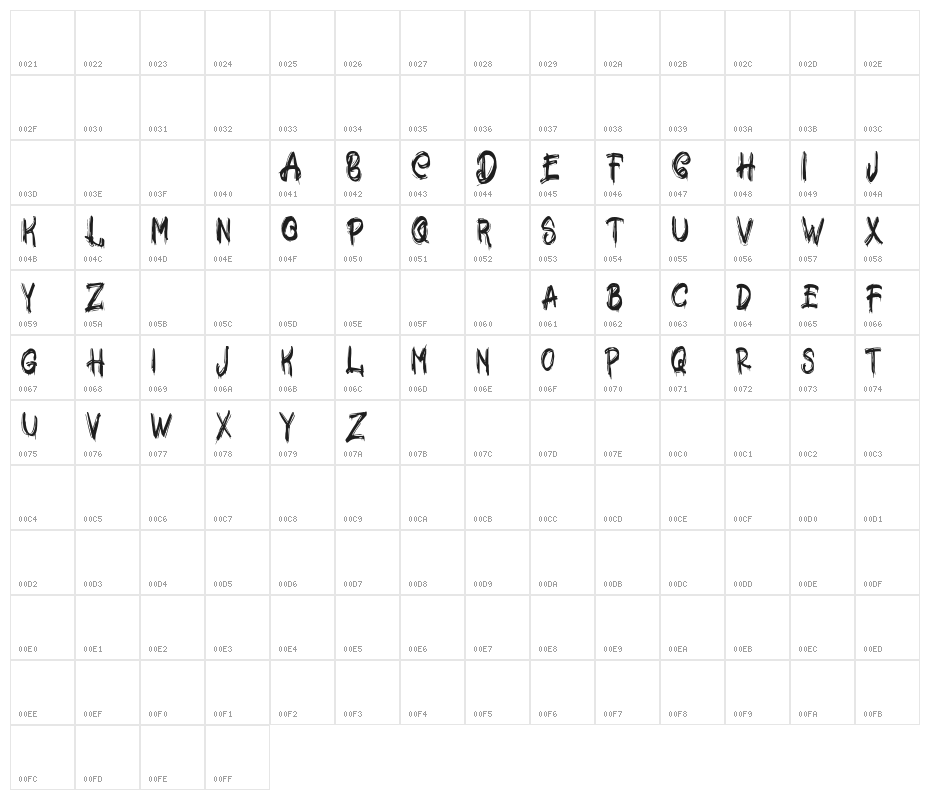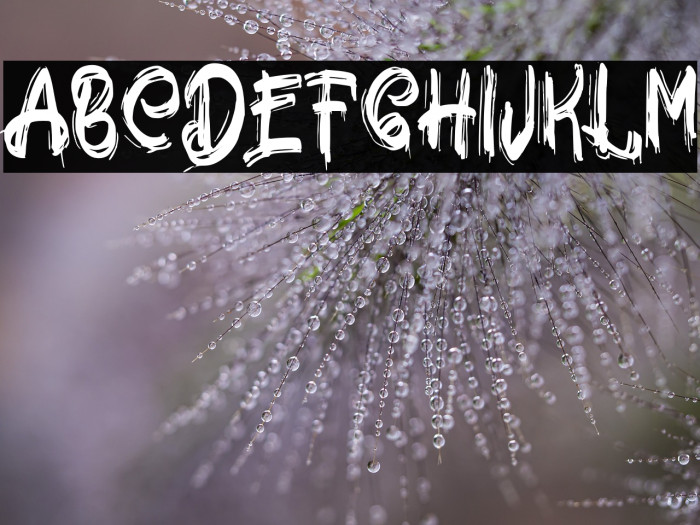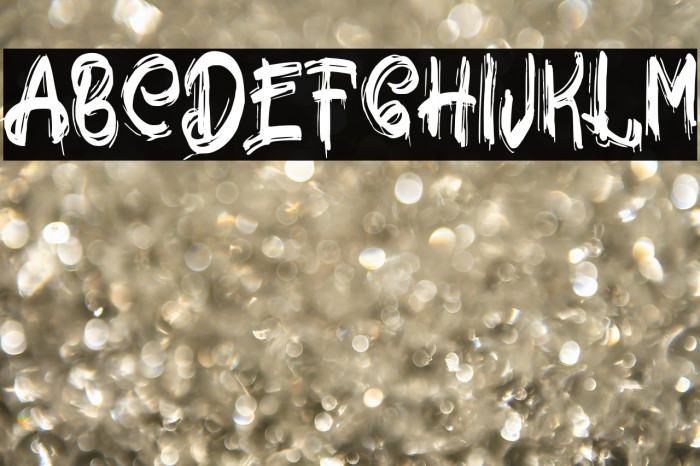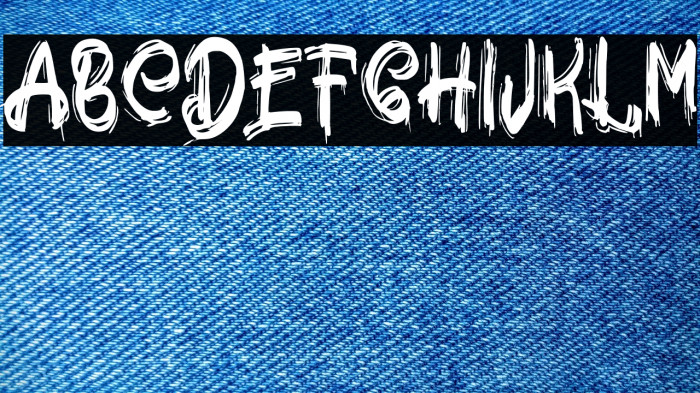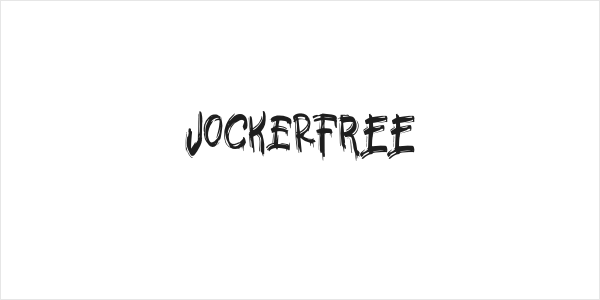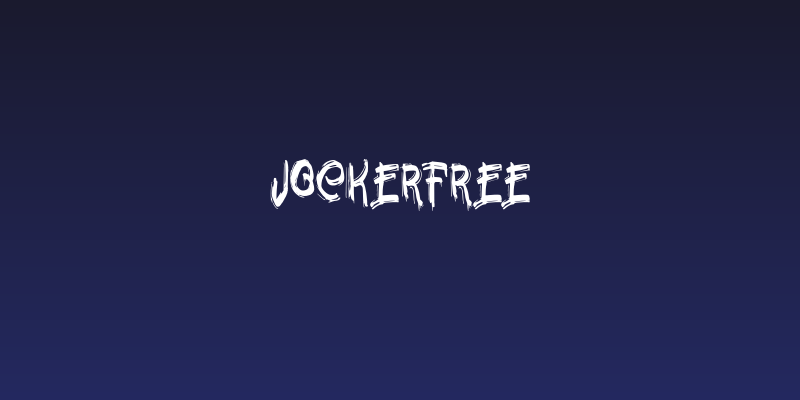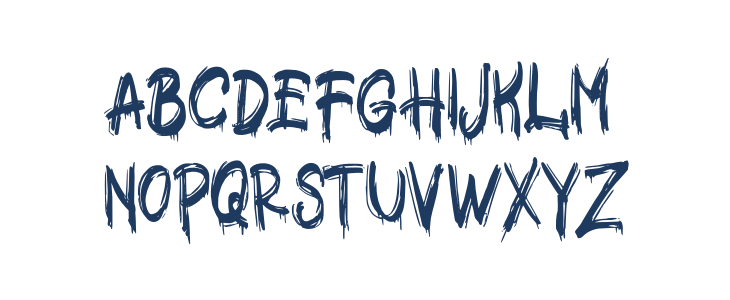
JockerFREE Font
JockerFREE Description
This font features a bold, expressive style with a hand-drawn appearance, characterized by irregular, jagged edges and a brush-like texture. The letters have a dynamic, energetic feel, with varying stroke thicknesses that create a sense of movement and spontaneity. The uppercase and lowercase letters maintain a consistent style, with exaggerated curves and angles that give the font a playful yet edgy look. The numbers and special characters follow the same design principles, ensuring a cohesive appearance across all glyphs. This font is ideal for projects that require a bold statement or a creative, artistic touch.
| Overall Style | Modern, Artistic |
| Use Case | Headlines, Posters, Artistic Designs |
| Proposed Projects | Ideal for posters, album covers, graffiti art, and any project needing a bold, artistic flair. |